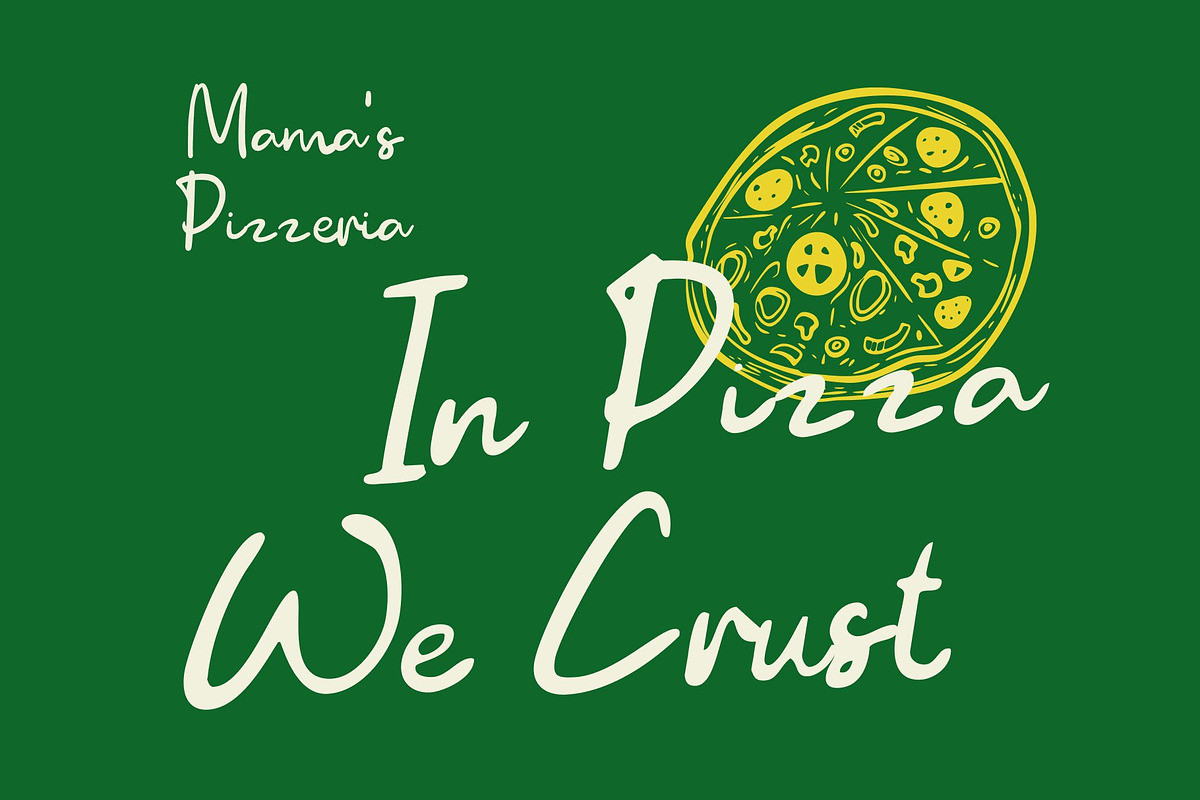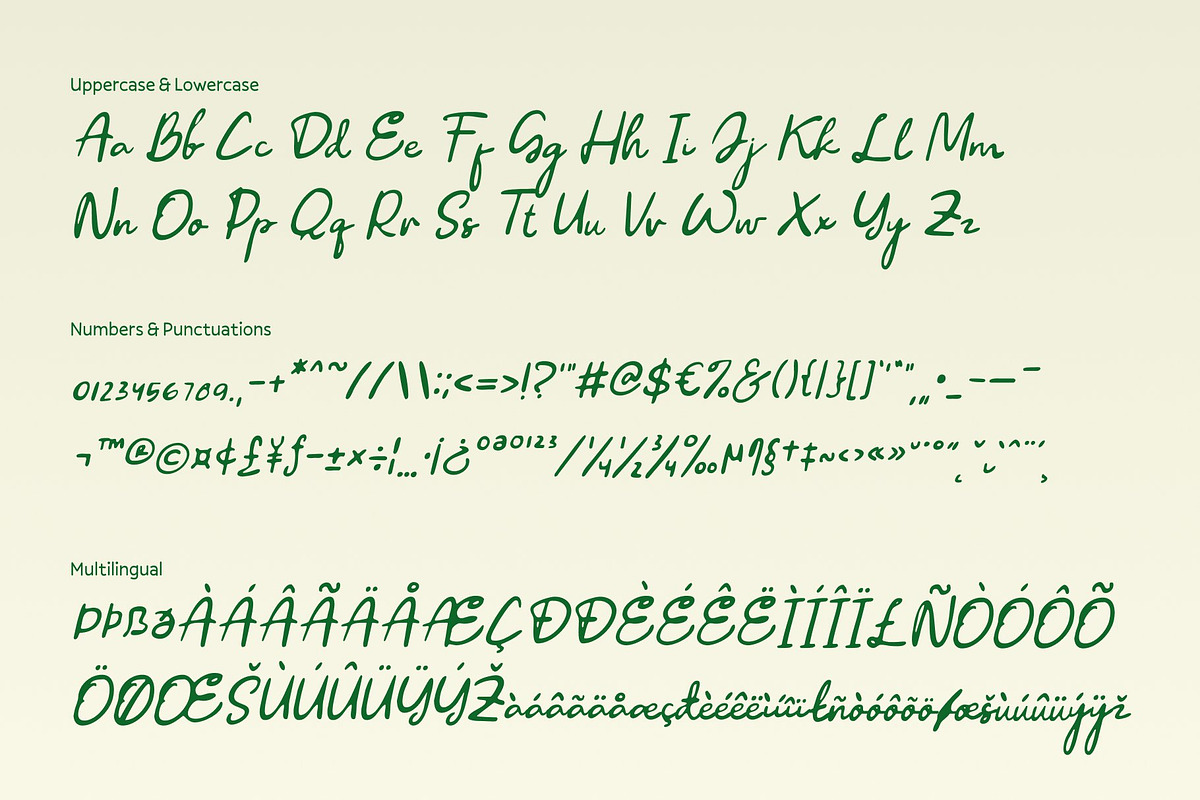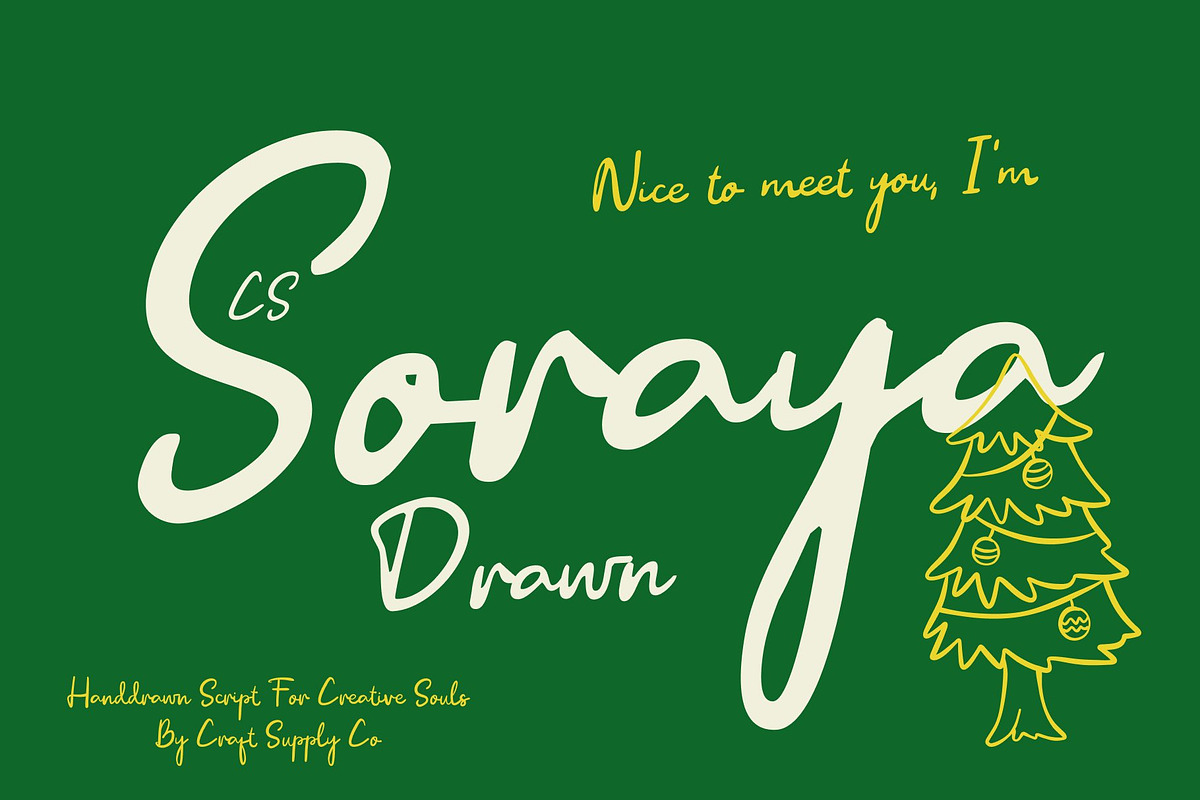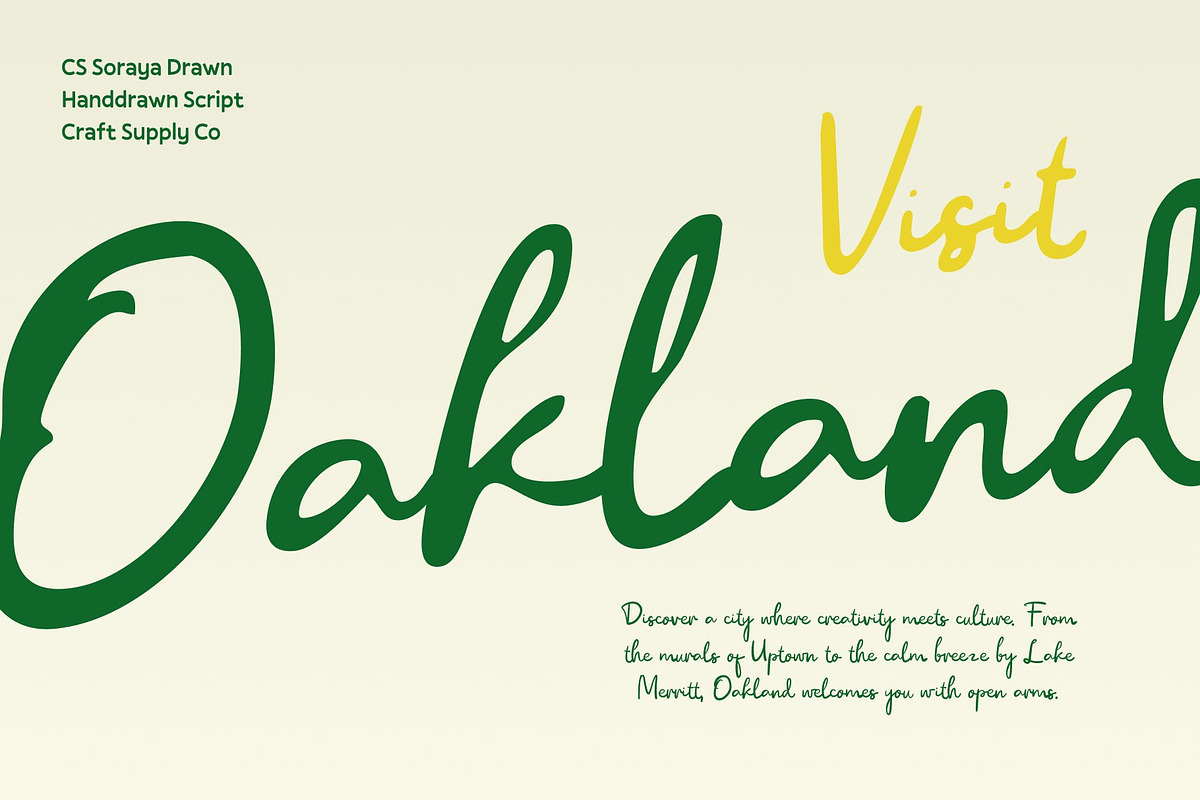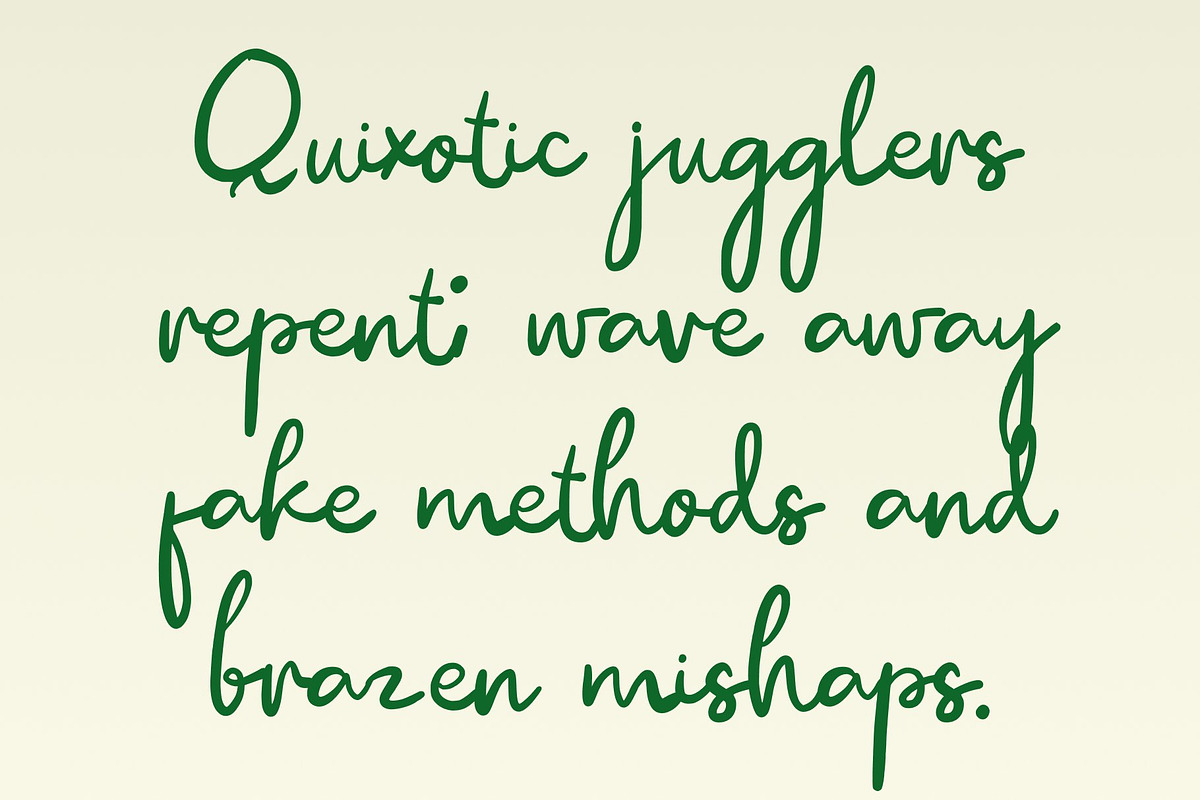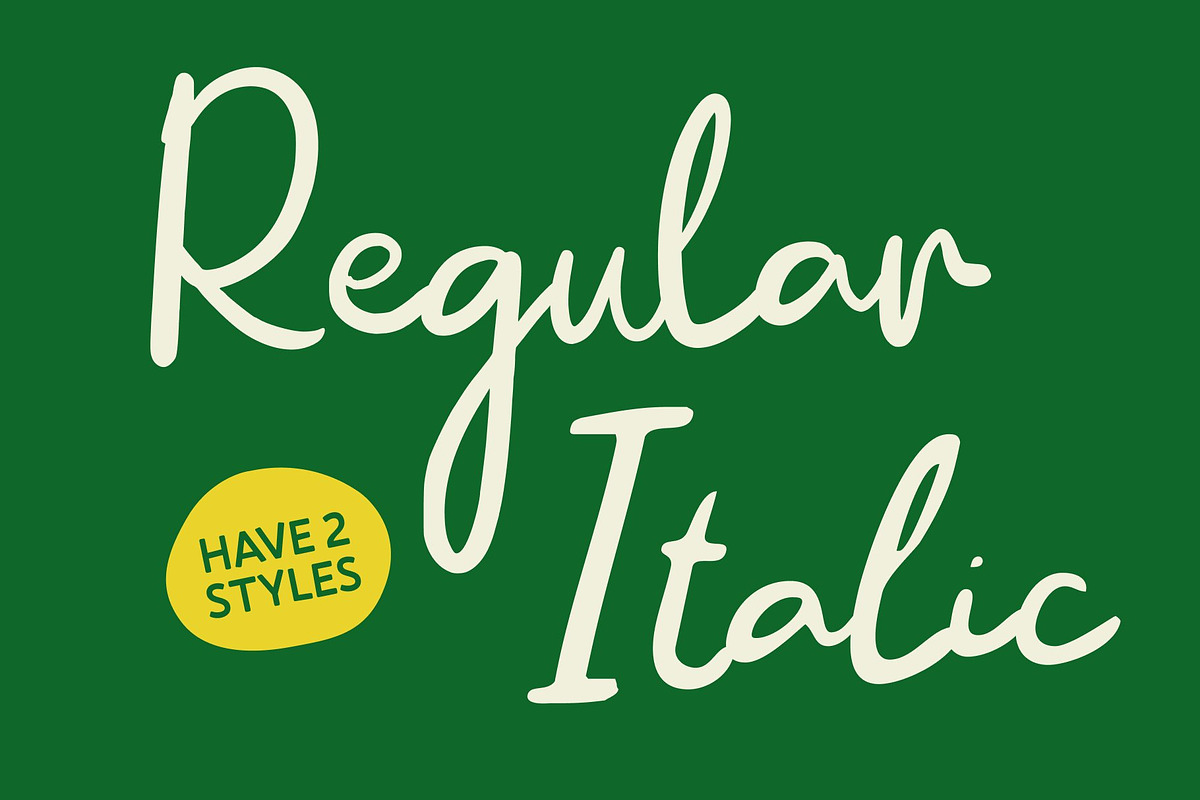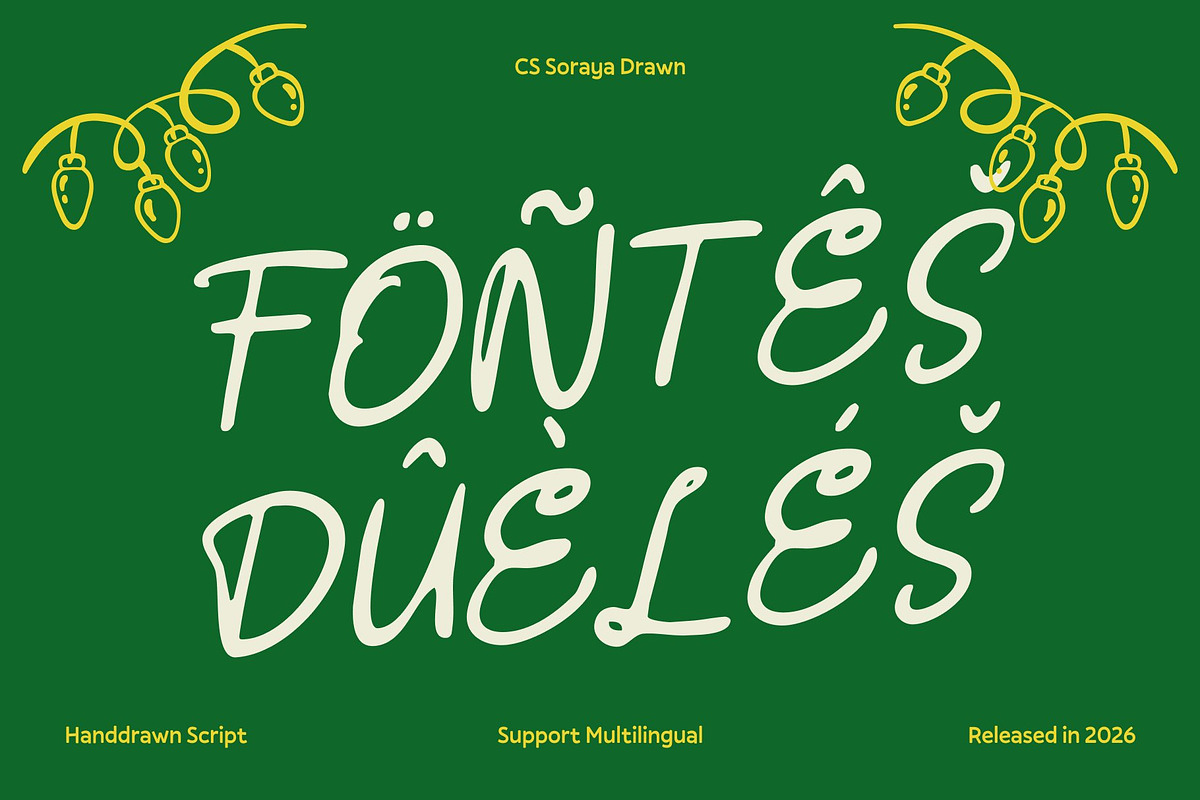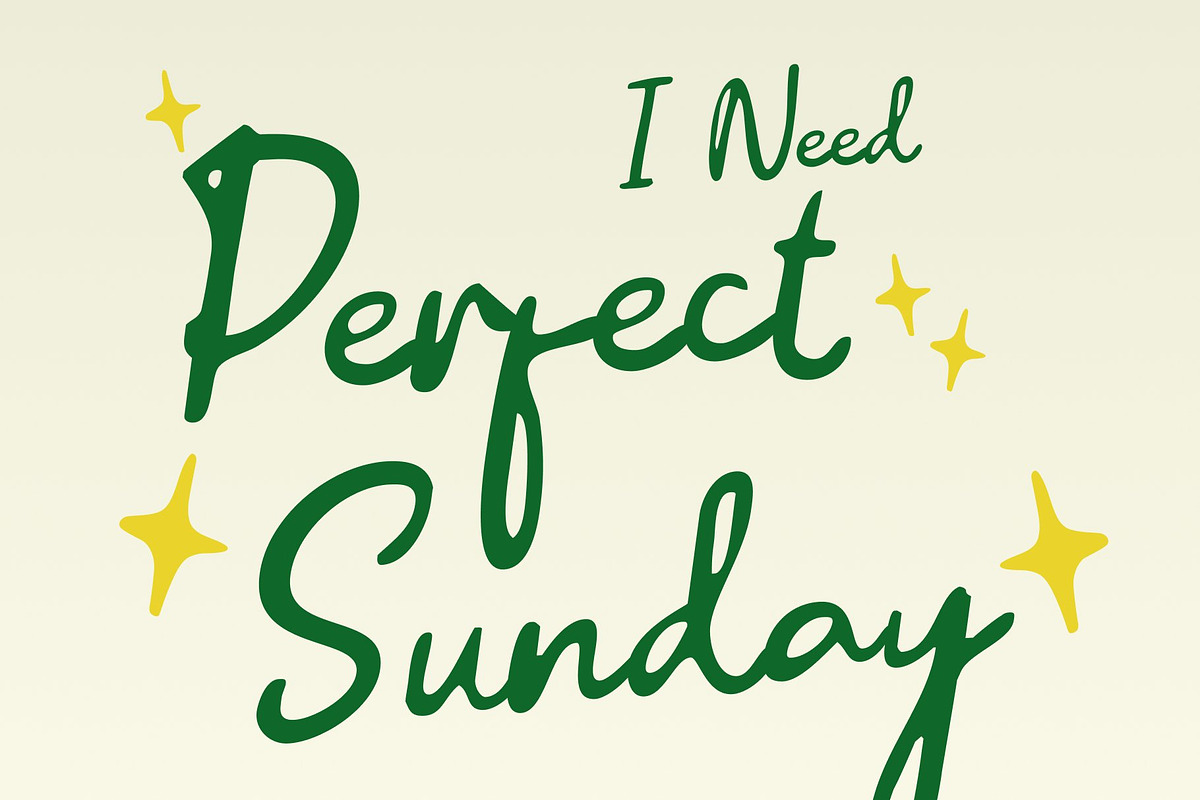
CS Soraya Drawn
CS Soraya Drawn – Carefree Vacation Vibes in Script Form
Vacay Script Font with Relaxed Holiday Spirit This is a carefree vacay script font created to capture the joyful, relaxed energy of holidays and sunny escapes. Inspired by travel adventures, warm beaches, and laid-back lifestyles, this font delivers an easygoing handwritten feel. The added drawn effect enhances its natural charm, giving every letter a slightly imperfect, artistic touch that feels personal and expressive.
Smooth Curves with a Cool, Casual Personality This font features smooth curves and fluid connections that emphasize a relaxed and friendly mood. The hand-drawn texture softens each stroke, making the script feel spontaneous and natural. Its casual rhythm creates an inviting appearance that feels modern, effortless, and full of warmth.
Relaxed Expression for Lifestyle and Event Designs This font excels at communicating ease and enjoyment. Its flowing script and artistic drawn details bring a sense of freedom and fun, making it ideal for lifestyle visuals, travel-themed designs, and event promotions. Used as headlines or accent text, it adds personality while keeping compositions light and balanced.
Perfect for Social Media, Branding, and Events This font is perfect for social media graphics, branding, packaging, and event materials. Its vacation-inspired script style and drawn texture make it especially suitable for travel brands, summer campaigns, beach events, cafés, and creative businesses that want to express a relaxed, cheerful, and welcoming vibe.